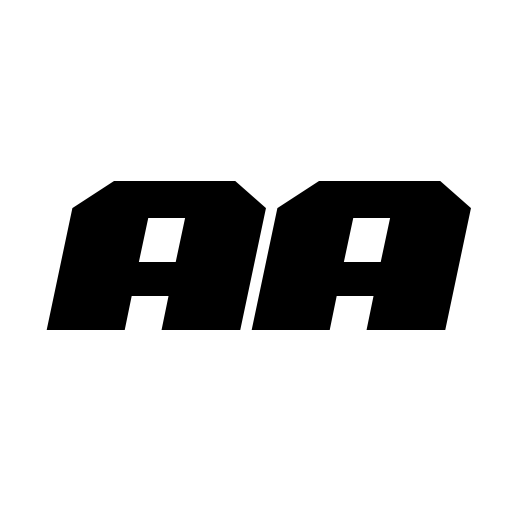
Barbara is a bold, condensed sans serif font with a strong geometric style and sharp edges, giving it an intense, dynamic feel. Its heavy weight and slanted form create a sense of motion and energy, making it perfect for sporty, modern branding and impactful headlines. This font works best in logos, posters, and display uses where a striking and powerful impression is desired.
Barbara Font
About Barbara Font